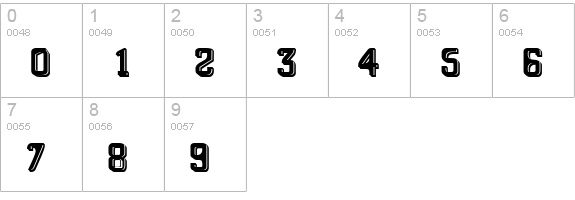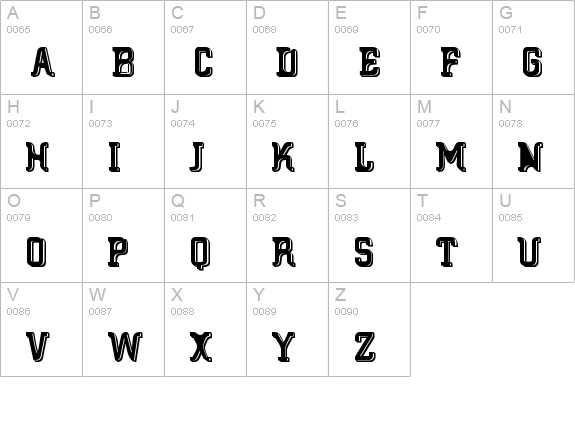
Big Blocko Font Details
Introducing Big Blocko font, a bold and eye-catching typeface that commands attention with its strong and robust design. This versatile font is perfect for making a statement in headlines, posters, logos, and more. Big Blocko features chunky block letters that exude a sense of power and authority, making it ideal for projects that require a bold and impactful aesthetic. What's even better is that Big Blocko font is available for free! You can easily download this striking typeface at FontsMarket.com and start using it in your design projects right away. Whether you're creating a bold poster for an event or designing a powerful logo for a brand, Big Blocko font is sure to make a lasting impression. Don't miss out on this free download and add Big Blocko to your font collection today!